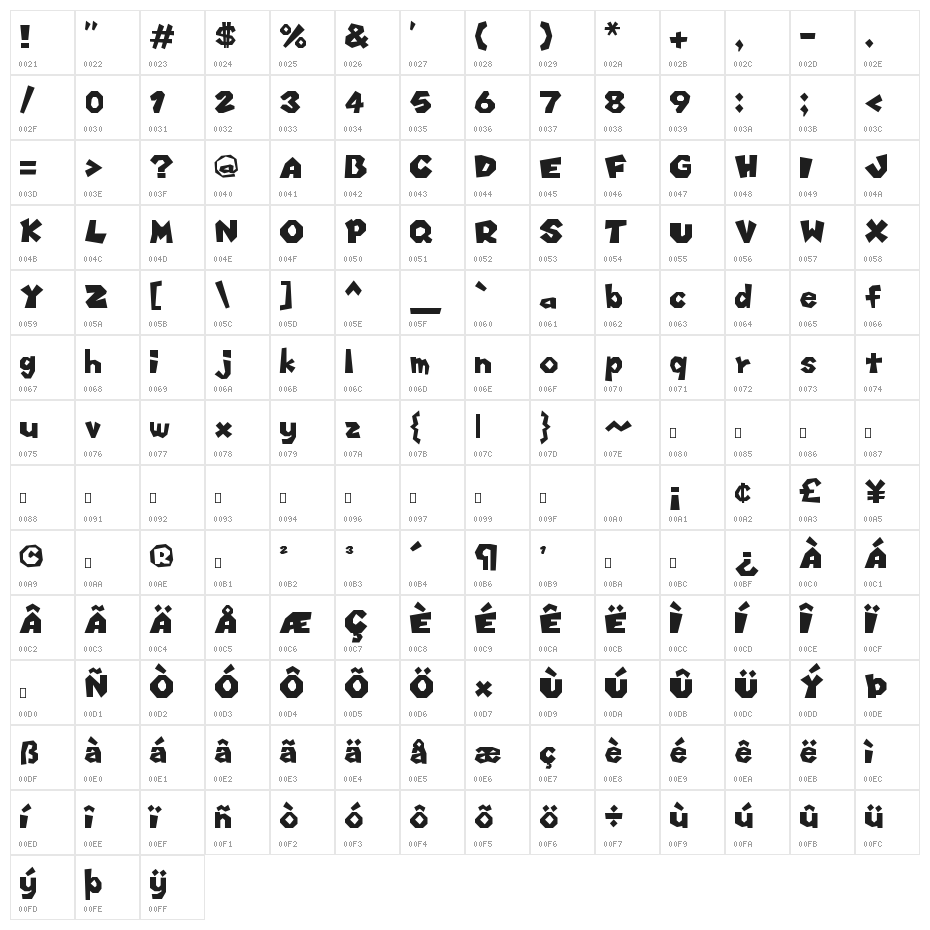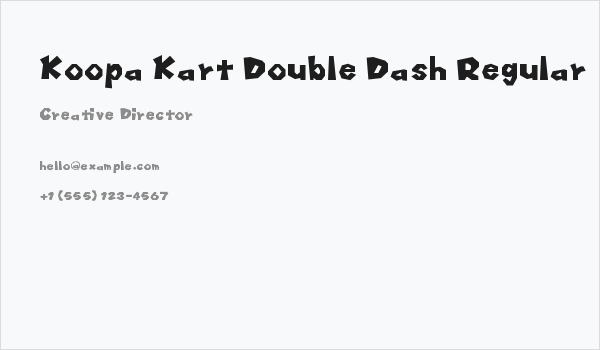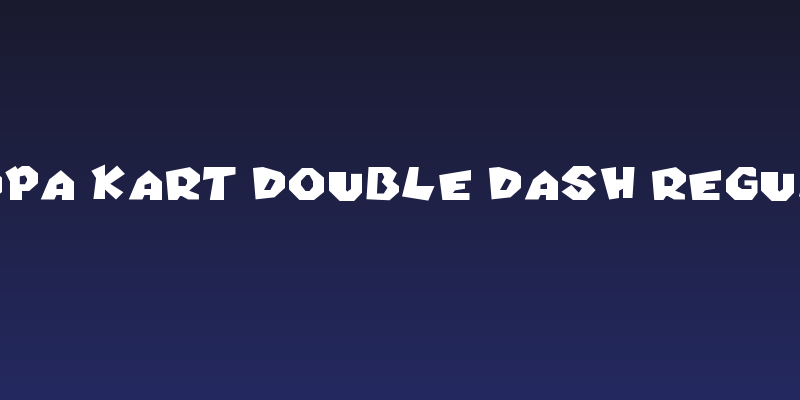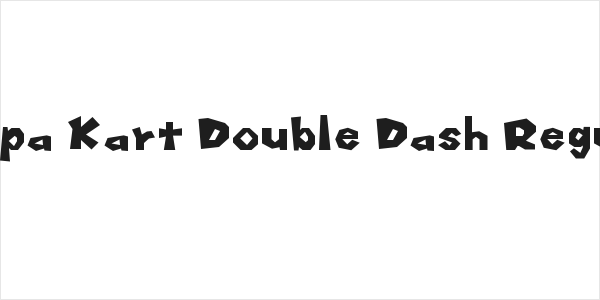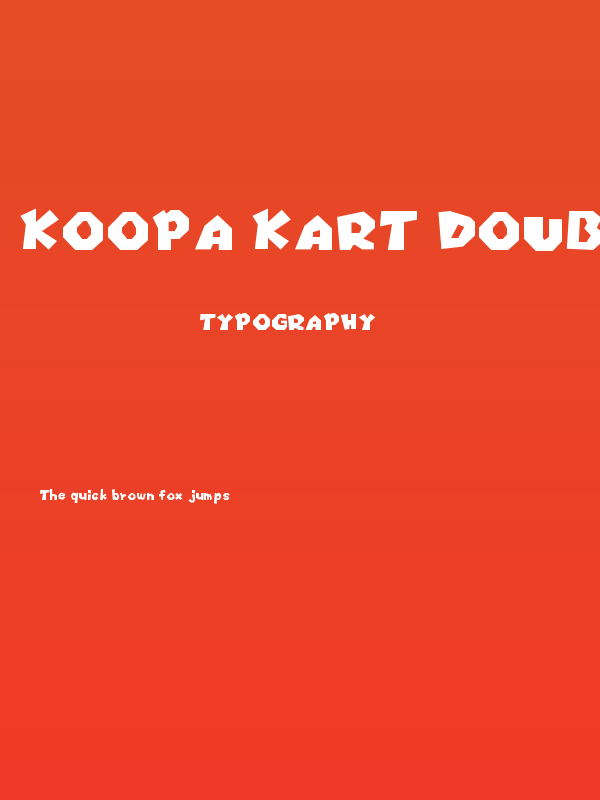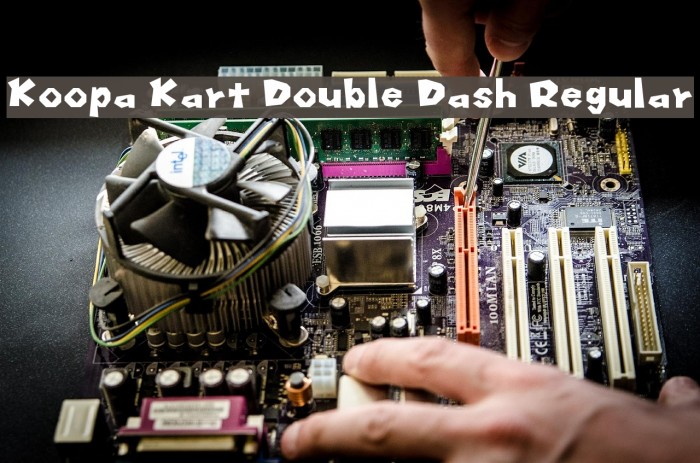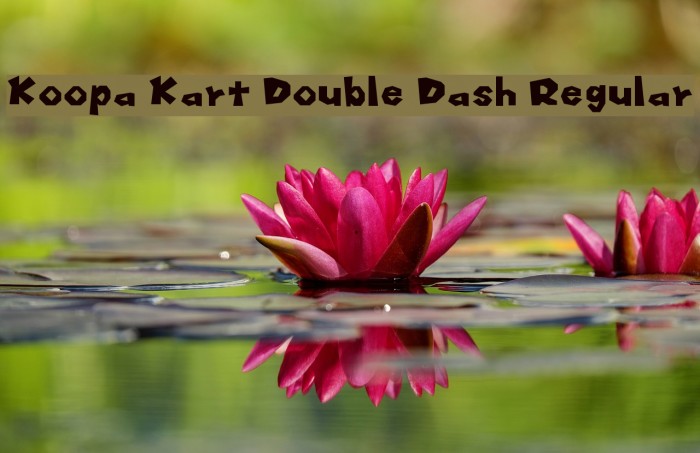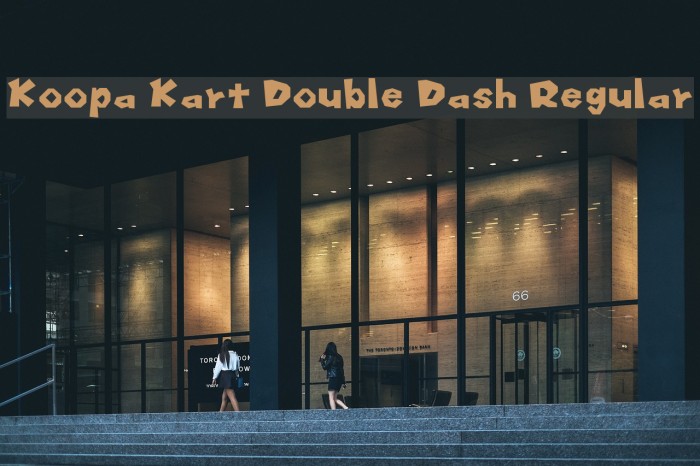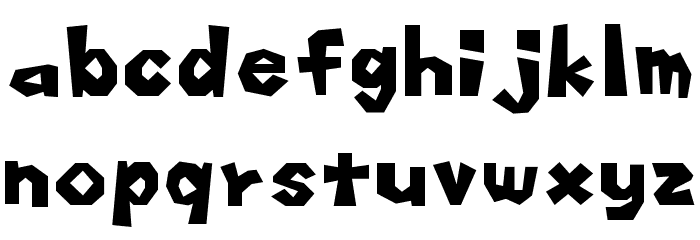
Koopa Kart Double Dash Regular Font
Koopa Kart Double Dash Regular Description
This font features a bold, playful design with a distinctly angular and geometric style. Each character is crafted with sharp edges and a blocky appearance, giving it a dynamic and energetic feel. The uppercase and lowercase letters maintain a consistent style, with exaggerated angles and a slightly irregular form that adds to its whimsical charm. Numbers and special characters follow the same design principles, ensuring a cohesive look across all text elements. The font's unique style makes it stand out, perfect for projects that require a fun and eye-catching typeface.
| Overall Style | Playful, Energetic, Geometric |
| Proposed Projects | Ideal for video game titles, children's book covers, posters, and any project needing a fun, energetic typeface. |